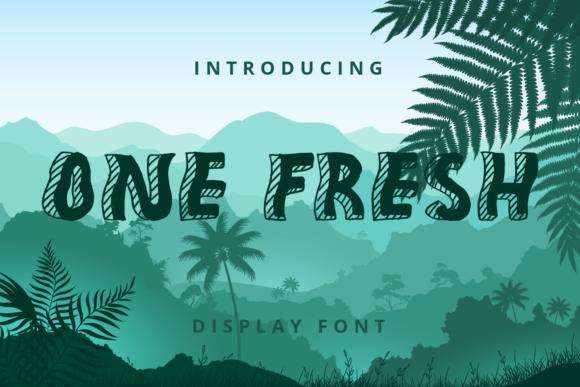
In a world saturated with monotonous and unoriginal fonts, One Fresh Font emerges as a breath of fresh air, a font that embodies joy, playfulness, and creativity. Its whimsical charm effortlessly elevates any project, be it cartoonish escapades, captivating children's games, or designs yearning for a touch of lightheartedness.
One Fresh Font is not just a collection of letters; it's an invitation to a world of laughter, happiness, and unbridled imagination. Its vibrant energy is contagious, effortlessly capturing the essence of joy and spreading it across your designs like wildfire. Unleash your inner child and let One Fresh Font paint a smile on the faces of your audience.
Picture this: a world where your designs dance to the rhythm of laughter, where every word carries the weight of joy. With One Fresh Font, you have the power to transform the ordinary into the extraordinary, to turn the mundane into moments of pure delight. Its playful nature knows no bounds, making it the perfect companion for projects that embrace life's lighter side.
So, whether you're a seasoned designer seeking a font that sparks imagination or a novice venturing into the world of typography, One Fresh Font is your perfect partner. Let its infectious charm infuse your creations with a sense of wonder and leave your audience grinning from ear to ear.